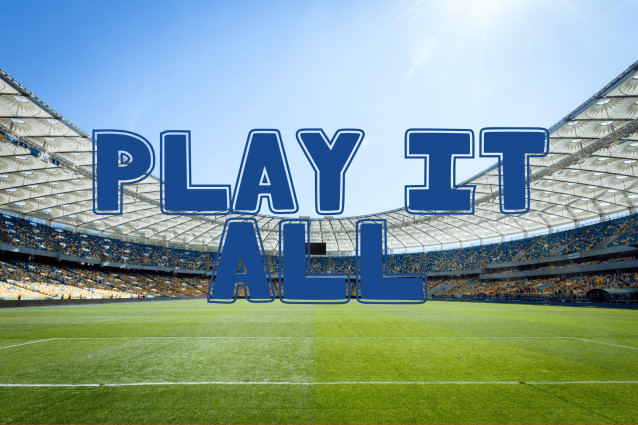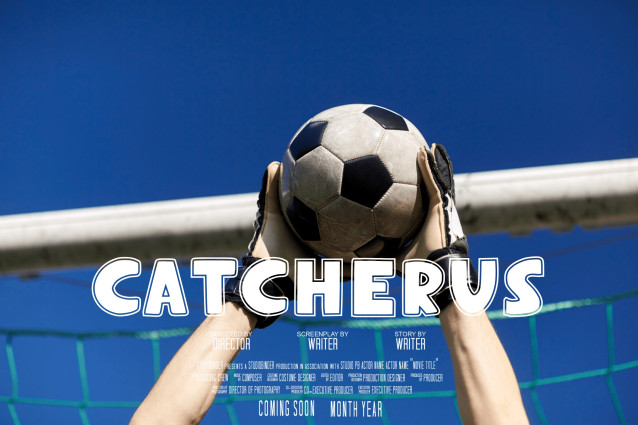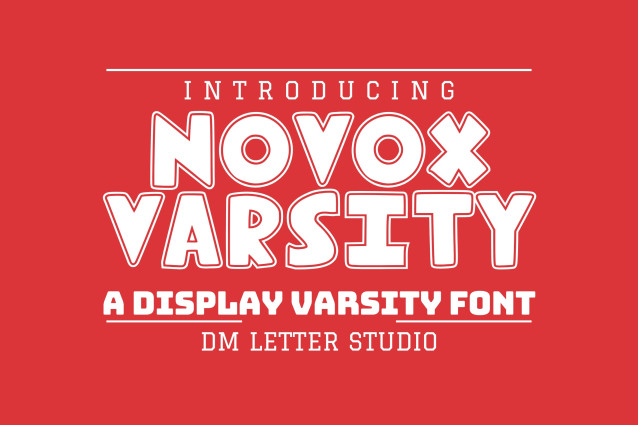
Novox Varsity Font
Novox Varsity is a striking display typeface inspired by classic collegiate lettering. With its bold block shapes, clean edges, and vintage varsity flair, this font brings the spirit of sports, school pride, and retro charm to your designs. Whether you’re crafting team merchandise, yearbook covers, motivational posters, or nostalgic apparel, Novox Varsity delivers the confident impact of traditional athletic aesthetics.